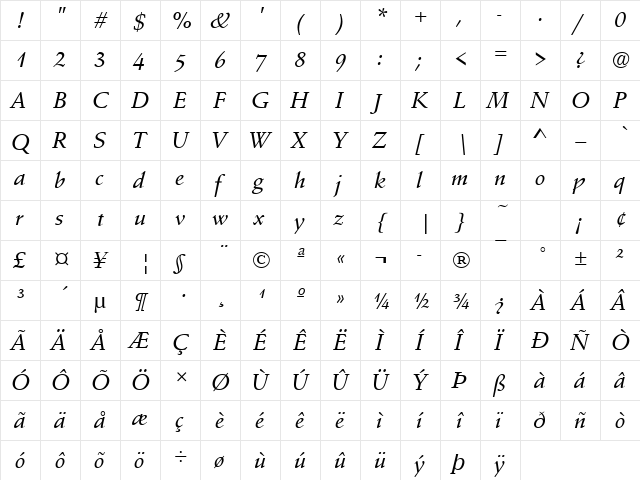
SchneidlerAmaTMed Italic
Design Context for SchneidlerAmaTMed Typeface
SchneidlerAmaTMed is a composed and adaptable typeface that performs quietly and consistently across a wide range of design contexts. The slanted form adds forward momentum and visual energy.